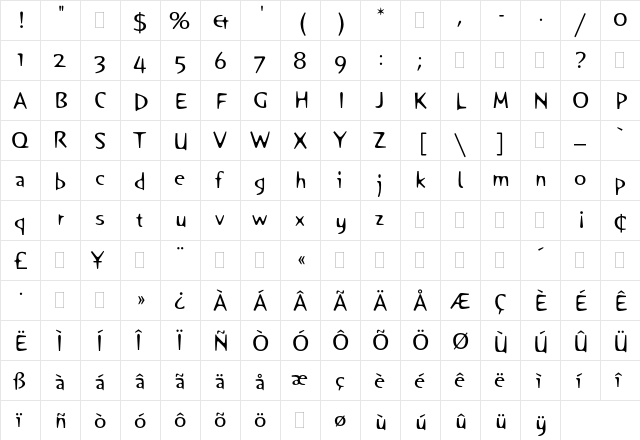
Orange Plain
Design Context for Orange Typeface
Orange is a composed and adaptable typeface that performs quietly and consistently across a wide range of design contexts.